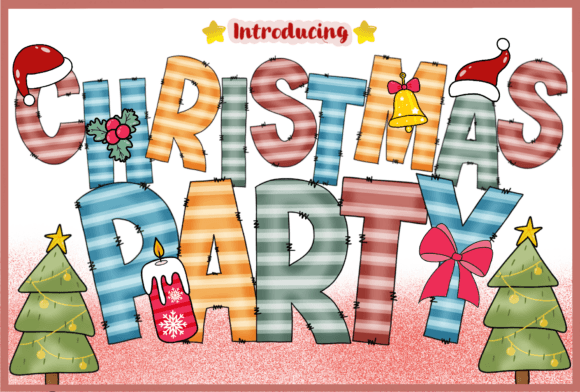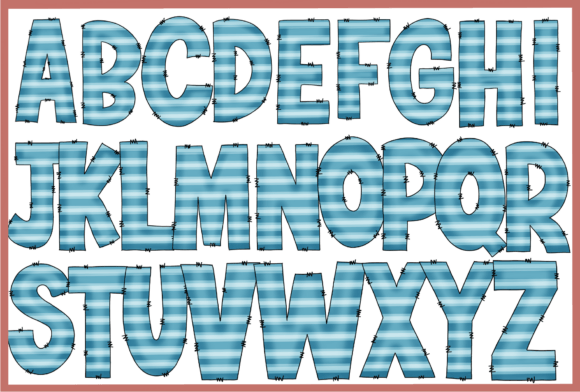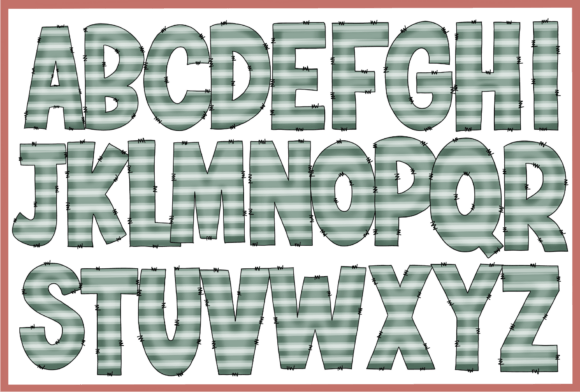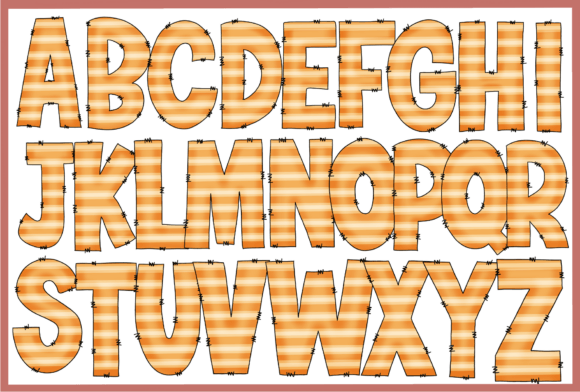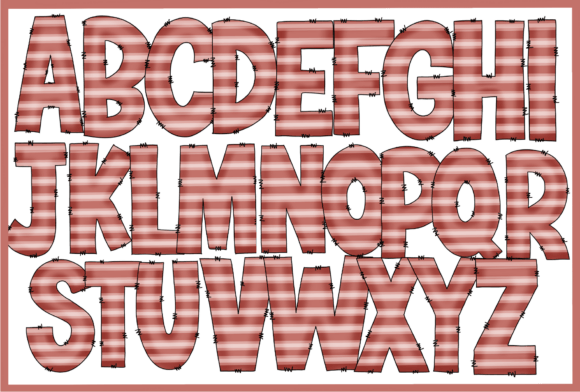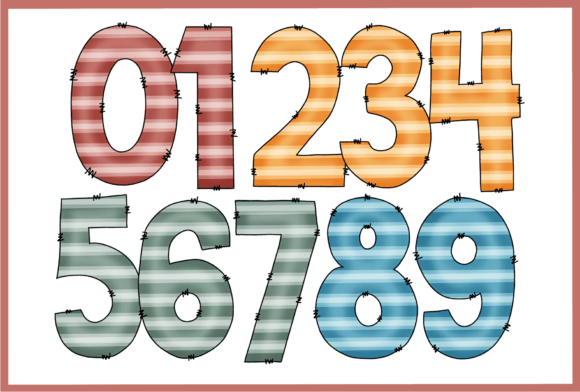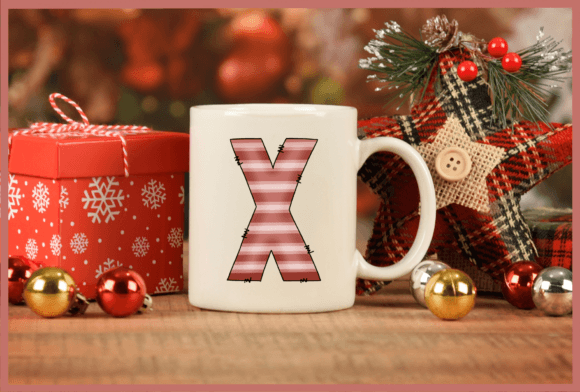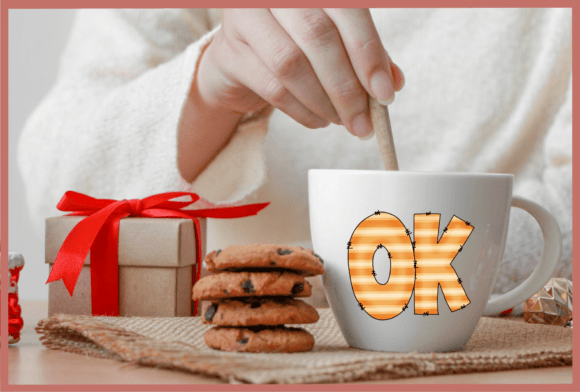
Christmas Party Font
Christmas Party is a decorative font designed with fun letters that feature Christmas patterns. Each letter is decorated with festive elements and ornaments, making it perfect for holiday cards, invitations, and cheerful designs.